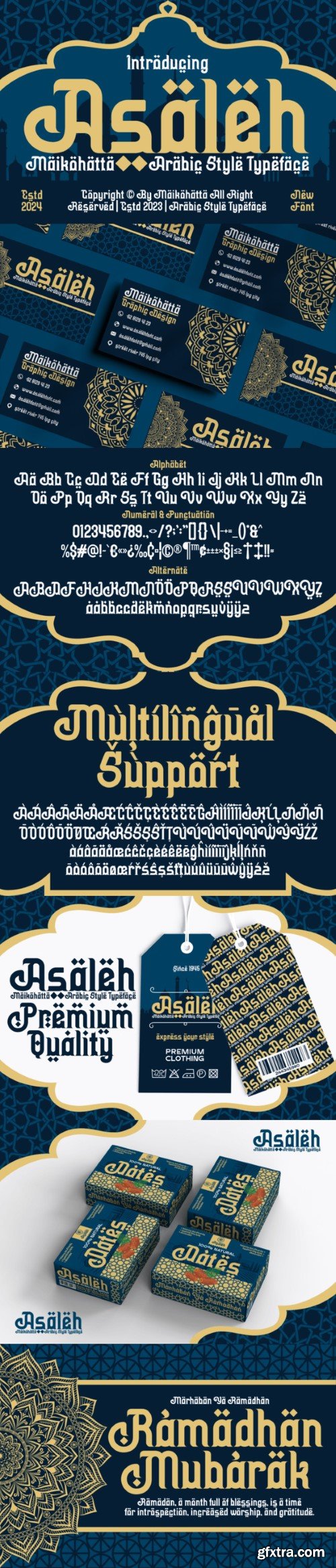
阿斯莱尔字体
Asaleh is an incredibly unique Arabic styled display font. Masterfully designed to become a true favorite, this font has the potential to bring each of your creative ideas to the highest level!